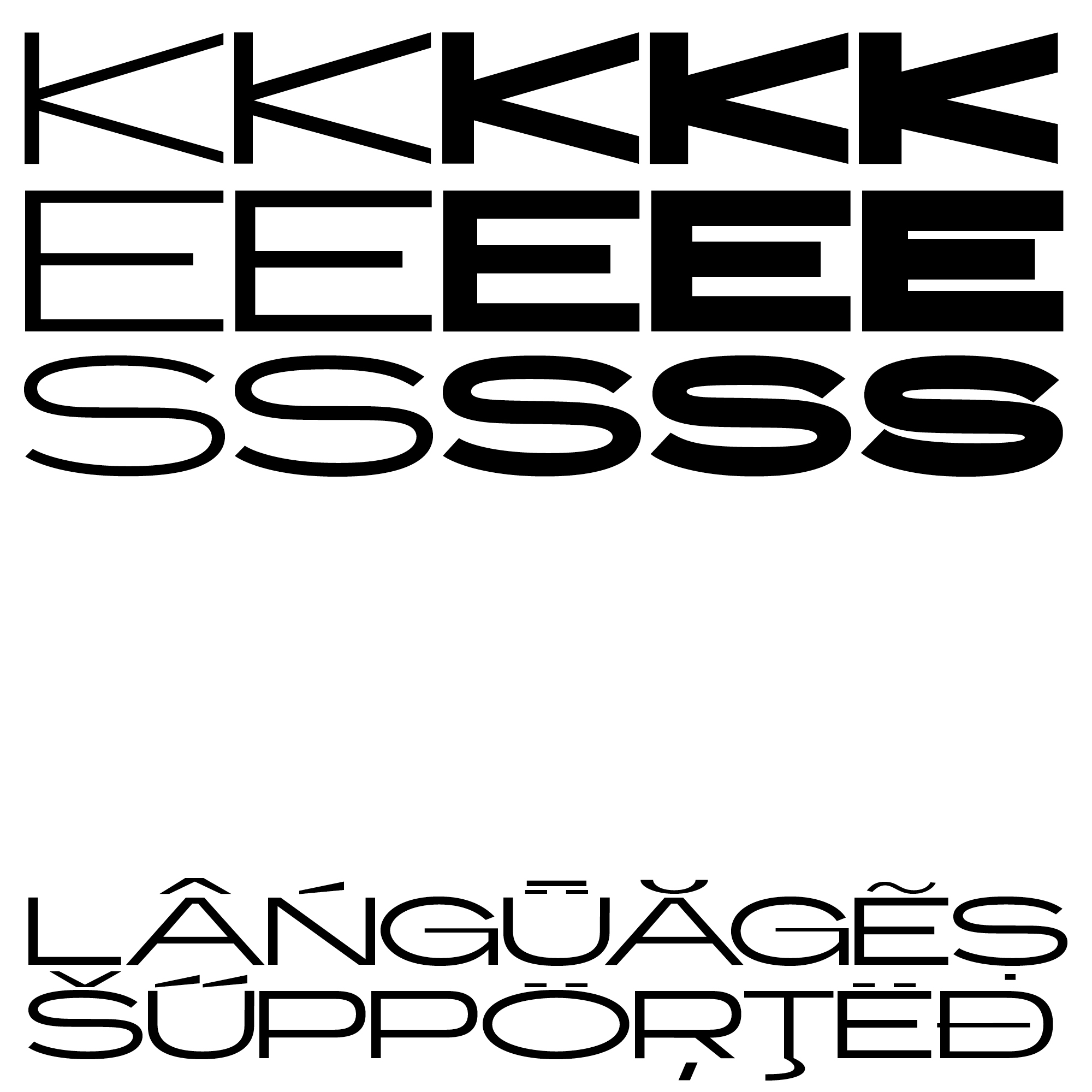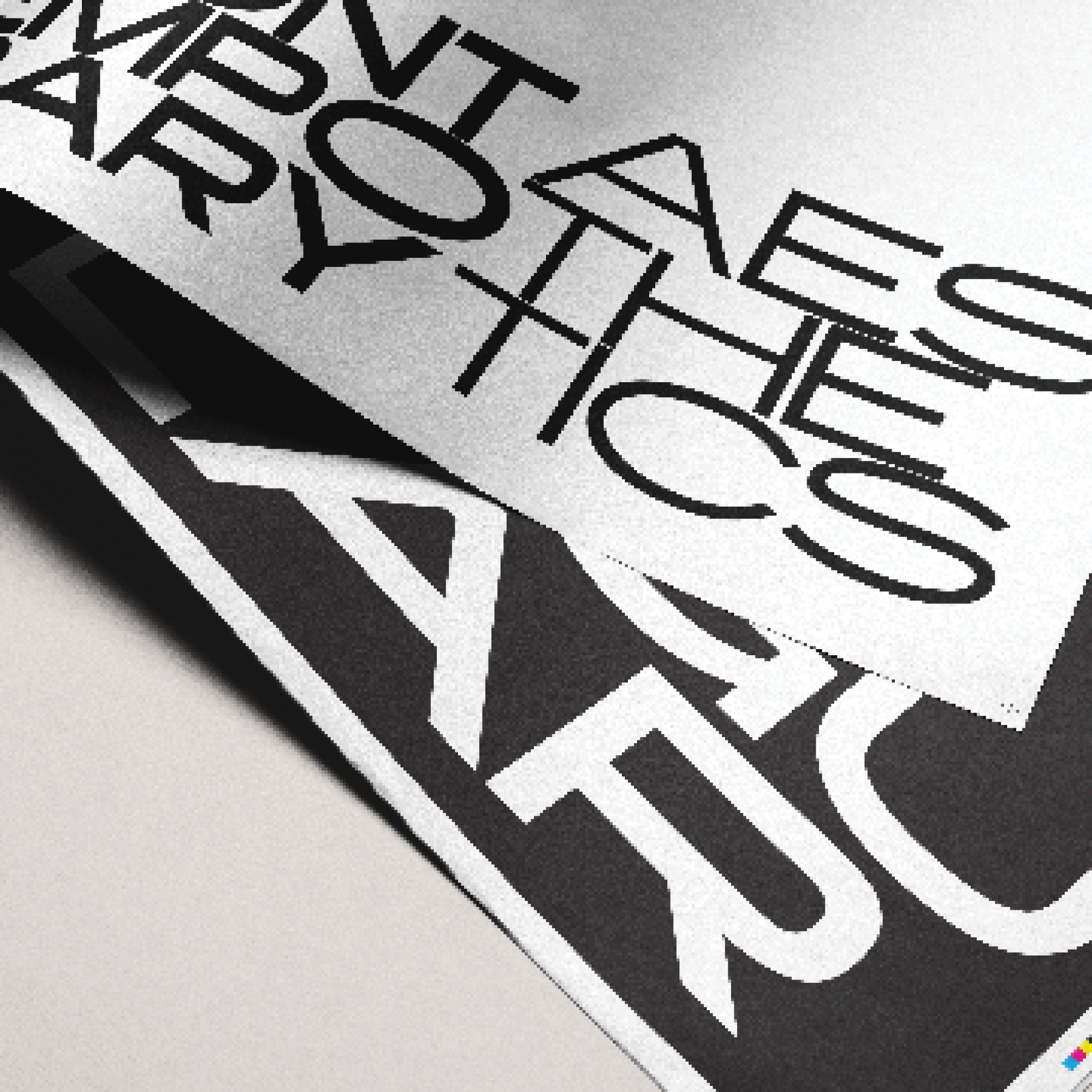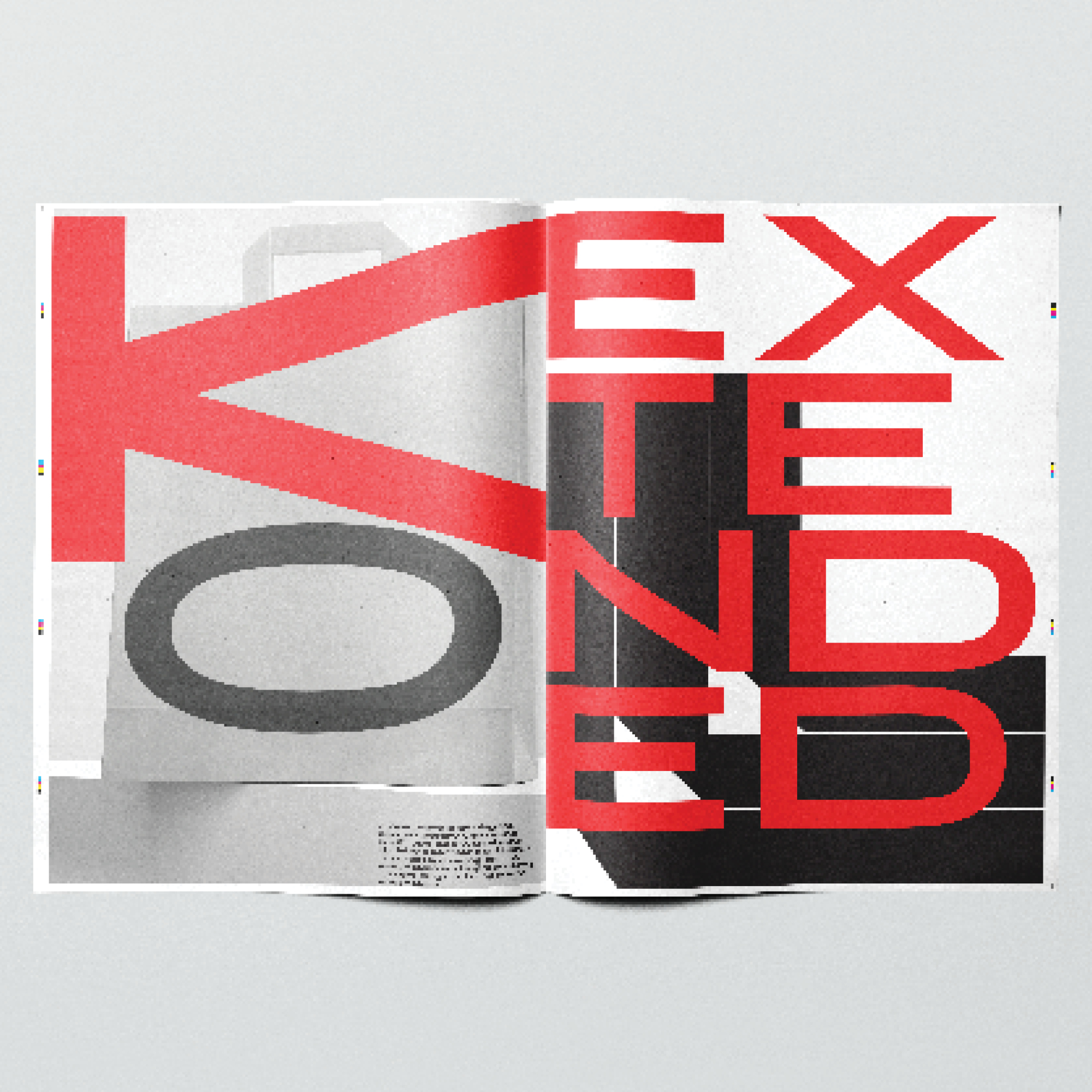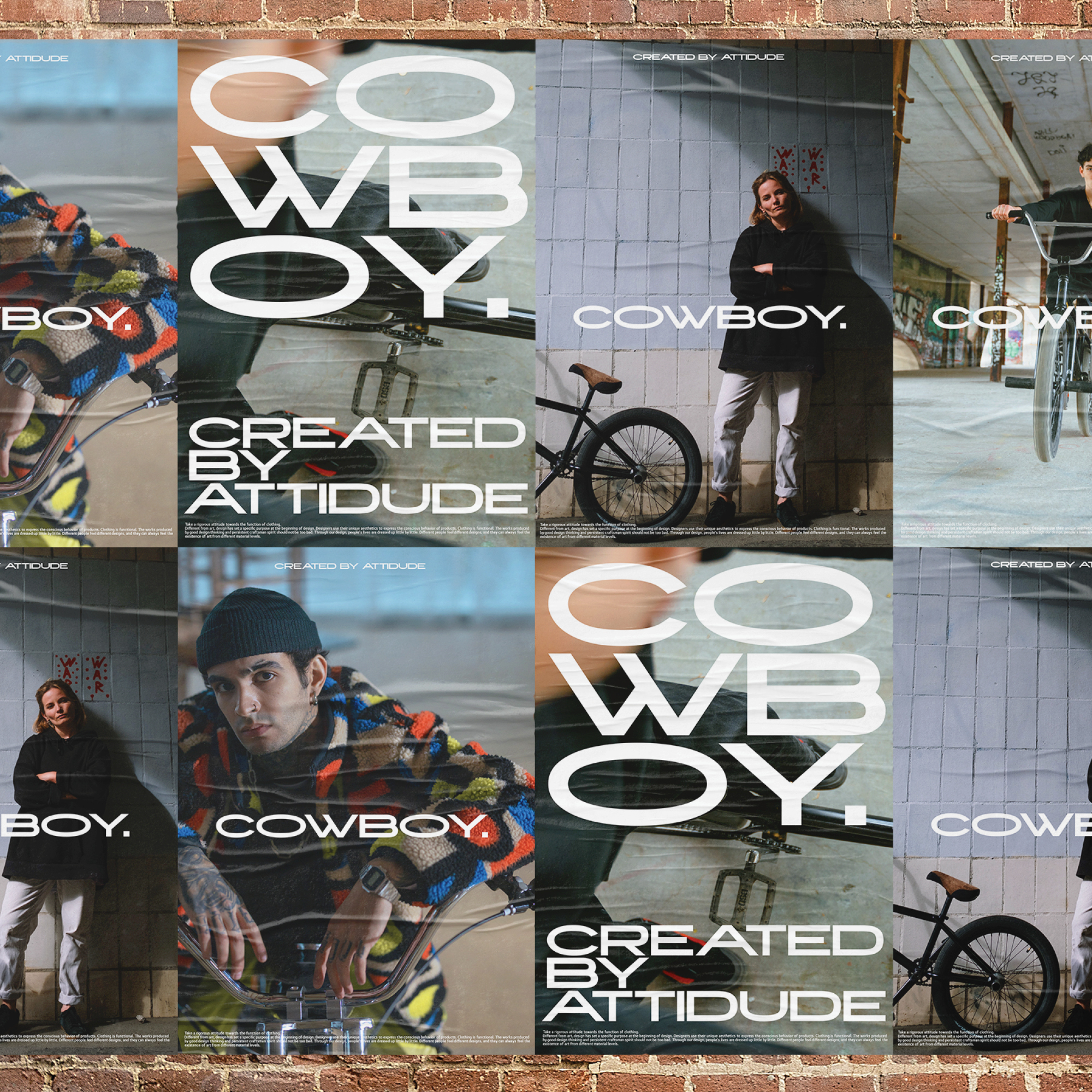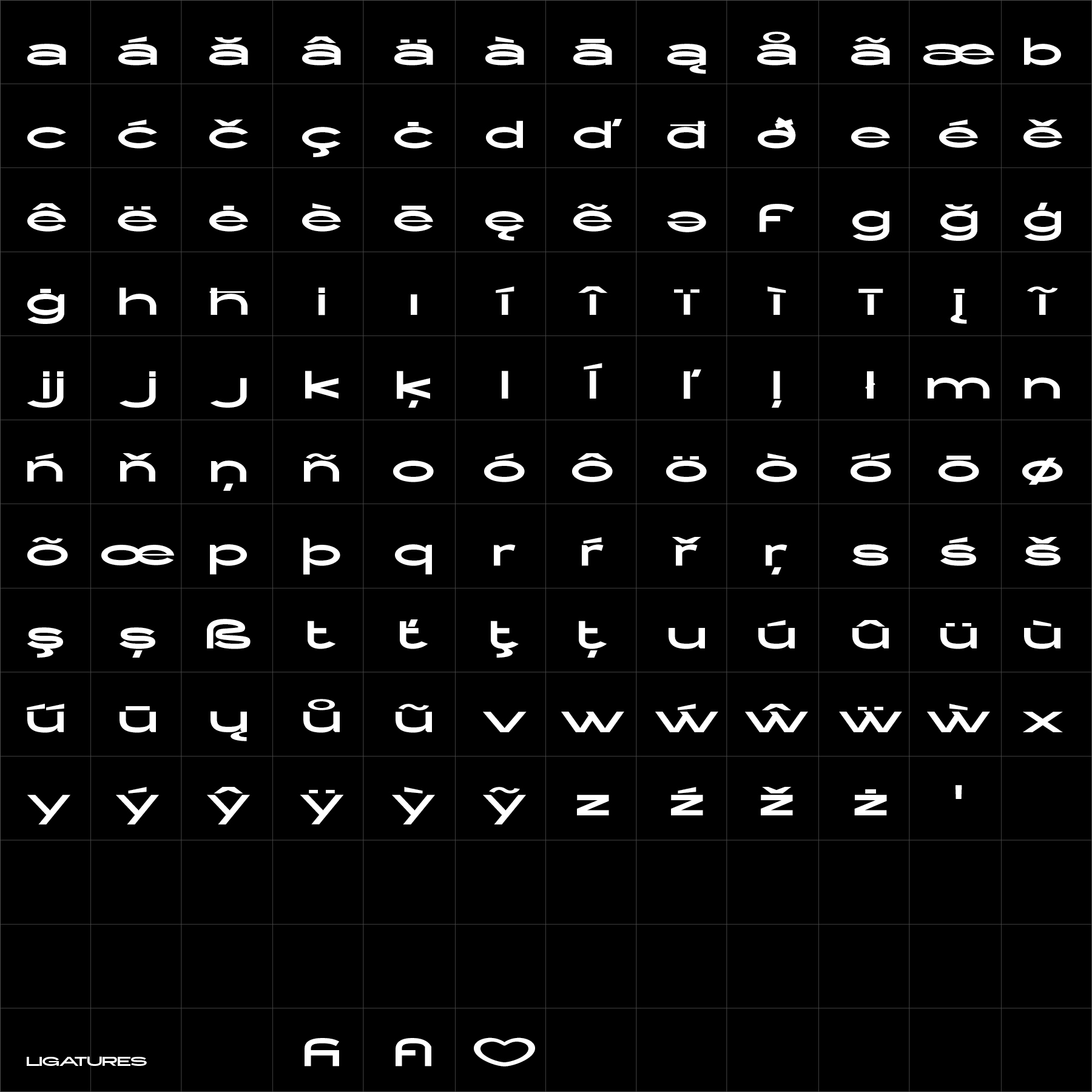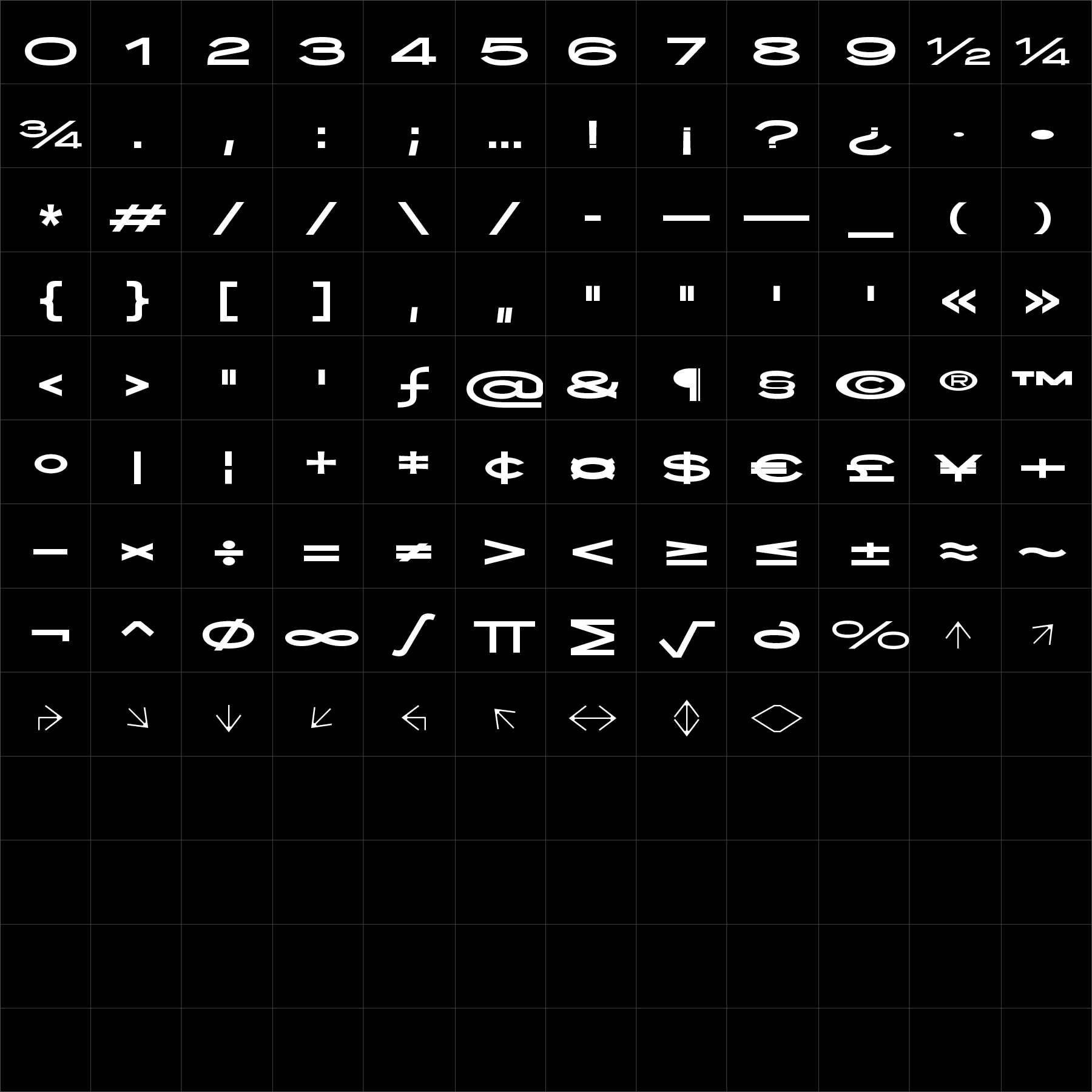
Alskar Extended
Extended Geometric Sans Serif
Say it wider.
Alskar Extended uses broad proportions and strong geometric construction to give typography an immediate architectural presence. Its open forms create a measured horizontal rhythm, allowing language to feel expansive, confident and firmly structured.
Across identity, editorial, signage and digital applications, Alskar transforms width into a distinctive part of the visual language. Its range of weights moves from spacious and refined to bold and commanding while maintaining the same controlled proportions and recognisable character.